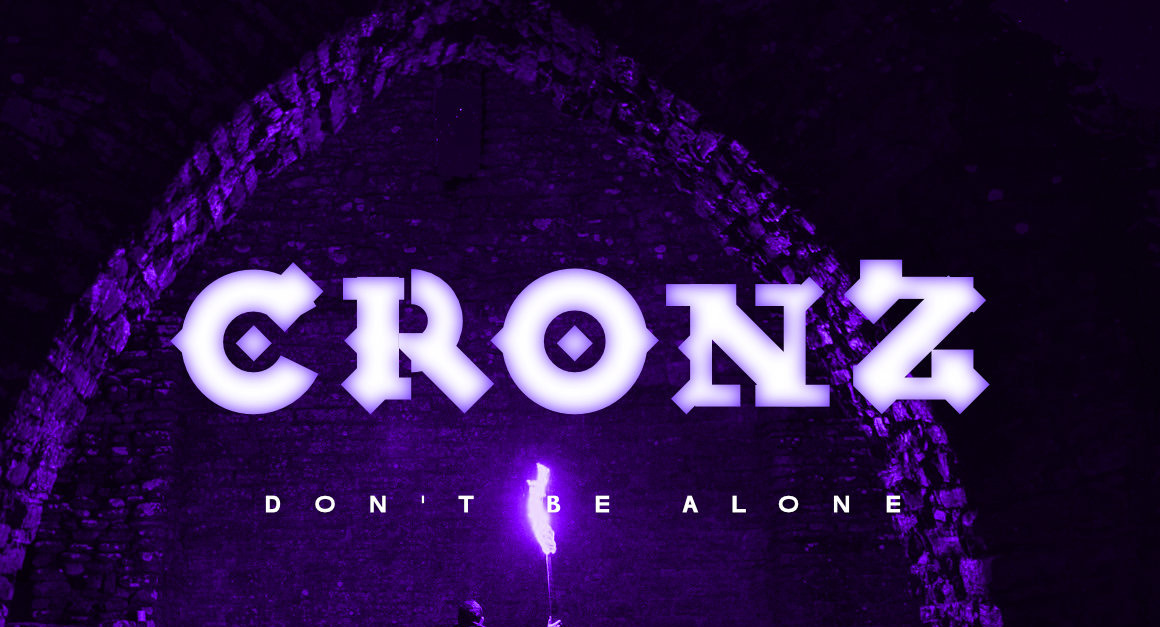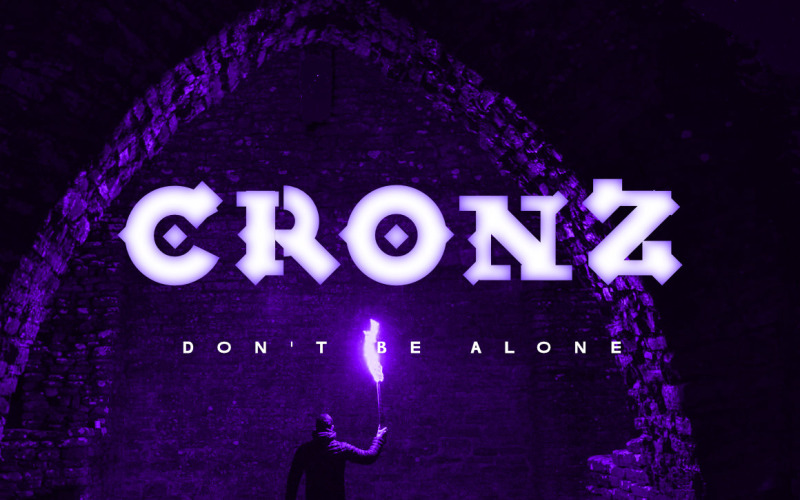
FR Warrior Plain Fantasy Kids
A historical font with a calligraphic flair, instantly recognizable by its dramatic contrast between thick and thin strokes. The letters themselves are narrow and tall, often with sharp angles and elaborate flourishes. Dense and decorative, this font evokes a sense of old-world charm and formality.
Recommended using in
- Ads, Branding, Title and much more